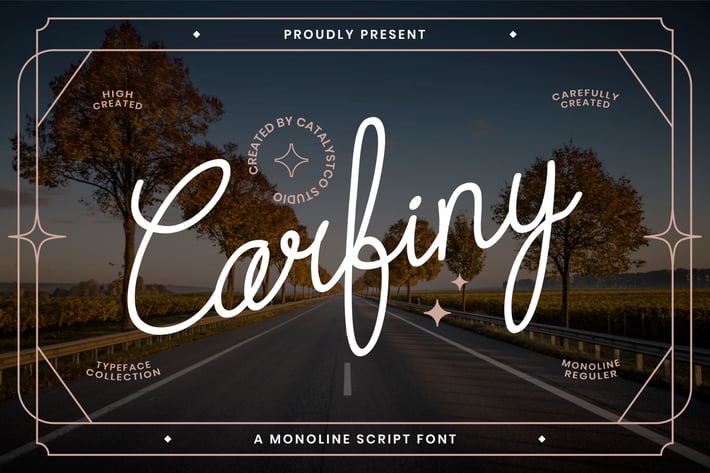
Carfiny Script Font
Carfiny is a refined monoline script font with smooth curves and a natural handwritten flow. Designed to look effortlessly elegant and personal, each stroke creates a clean, modern, and balanced rhythm perfect for branding and polished creative visuals. The thin monoline structure gives Carfiny a sophisticated lightness that feels both warm and contemporary.
Ideal for signature logos, wedding invitations, personal branding, product labels, fashion titles, social media posts, greeting cards, and elegant stationery. Complete with uppercase, lowercase, numbers, punctuation, and consistent monoline stroke, Carfiny offers designers a stylish and versatile handwritten script for timeless typographic compositions.
Main Features
Ligatures & Alternate
Numeral & Punctuations